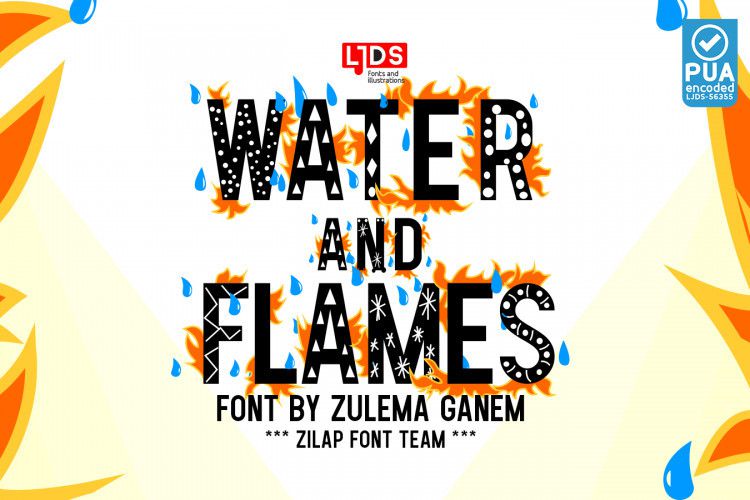
Water and Flames Font
Water and flames is a source created based on the idea of Juan Navarro (Zilap Studio)
“Zilap Font Team” the variation of the idea is created by the freelancer Zulema Ganem and Digitized by the LJ Design Studios team,
but it is directly Luis Jaramillo who gives him the option to add the main idea of Zulema; that the source has colors in its components.